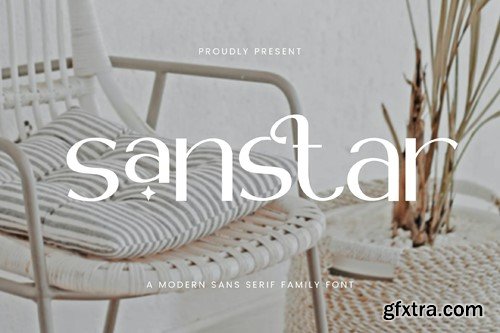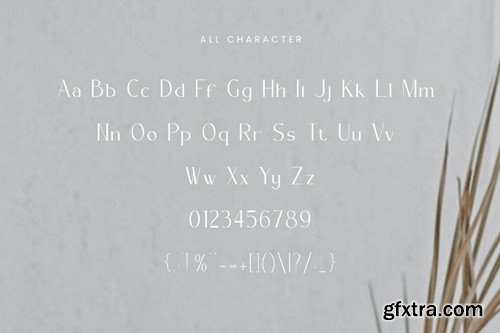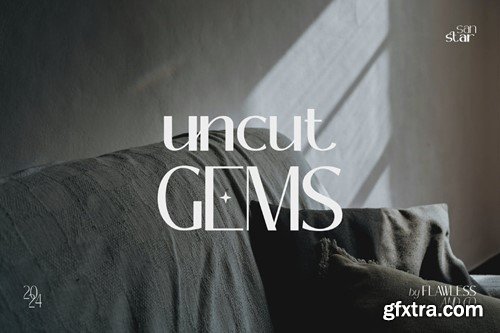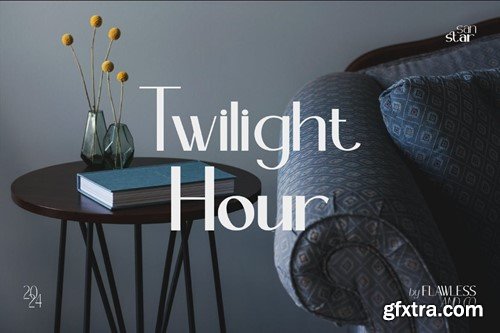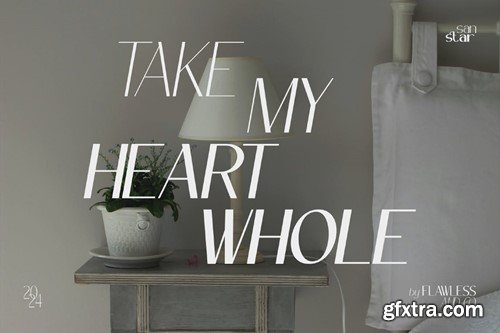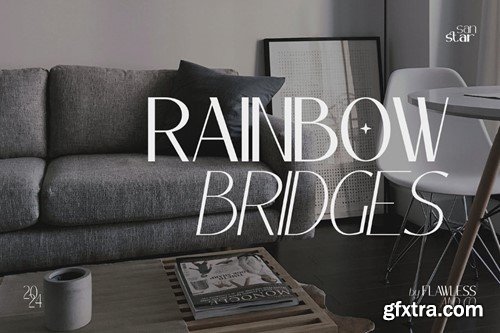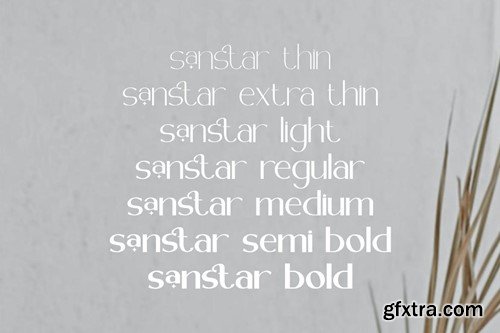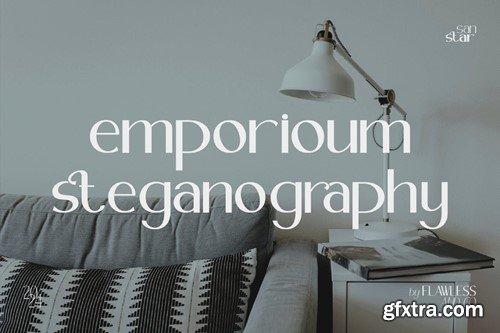
三尚特 - 现代无衬线字体家族N3SJGM4
Sanstar - Modern Sans Serif Font Family, Family Font, Sans Serif Family, Sans Serif Font, Magazine Font, News Paper Font, Modern Font, Elegant Font, Modern Font Canva Font, Cricut Font, Procreate Font, Branding Font, Logo Font. Introducing Sanstar, an elegant sans serif font family that exudes sophistication and style. With its clean lines, geometric shapes, and subtle stroke variations, Sanstar is perfect for creating a modern and refined look for your branding, web design, and editorial projects. Sanstar consists of various weights ranging from thin to bold styles, including thin, extra light, light, regular, medium, semi-bold, and bold. Keywords: Font Family, Sans Serif Font, Family Sans Serif But here we just share the regular type, if you want to buy all types, you can visit my website at flawlessand.co! Included: Features : Multilingual Uppercase alphabet A-Z Lowercase alphabet a-z Numbers 0-9 Some punctuation NOTE: For all the characters are also available, accessible in the Adobe Illustrator Glyphs Panel, or in Adobe Photoshop Character Open Type Panel. If you need help, just write me! Thanks so much for checking out my shop! ------------------------------------------------ All products on our Etsy Store is under Standard License ----------------------------------------------- HOW TO USE FONT : (connected letters, swirls, heart, swashes, diamond) for the first, install the .otf file and open fontbook/character map, find the font and you can copy and paste the heart letters from fontbook/character map to your text. Thanks, Flawless and co.